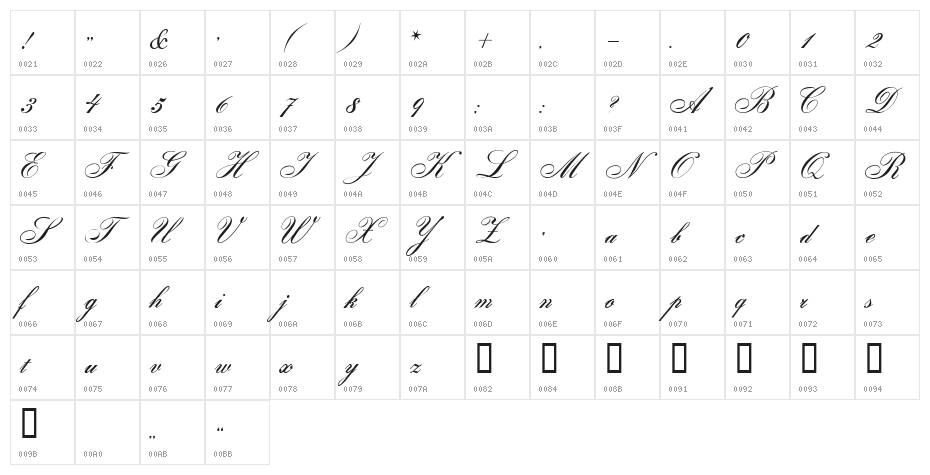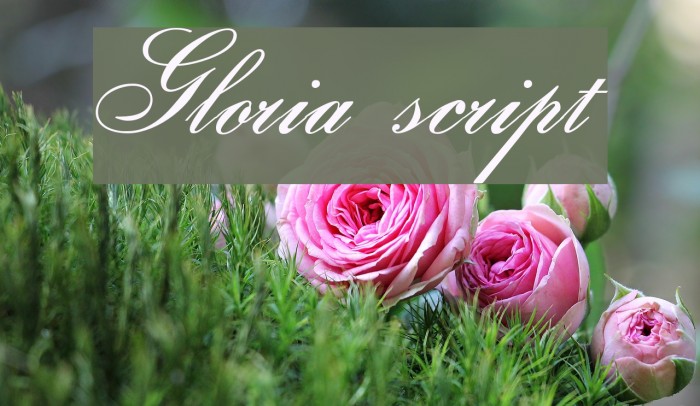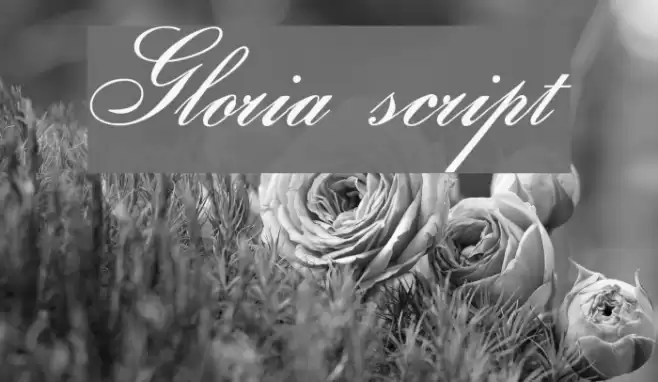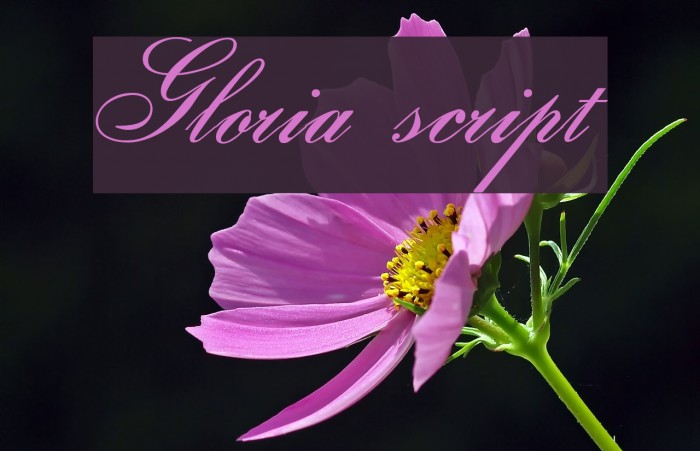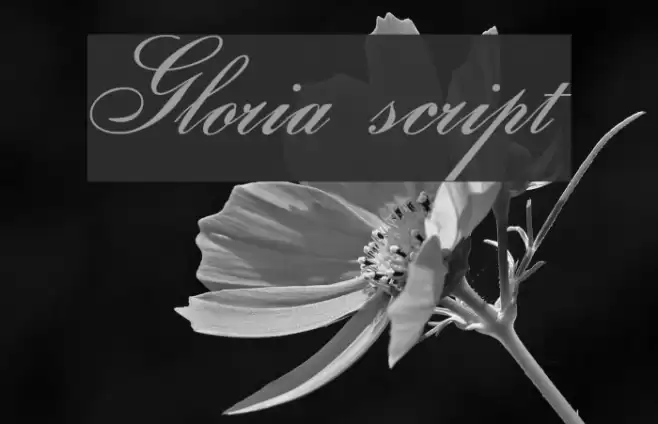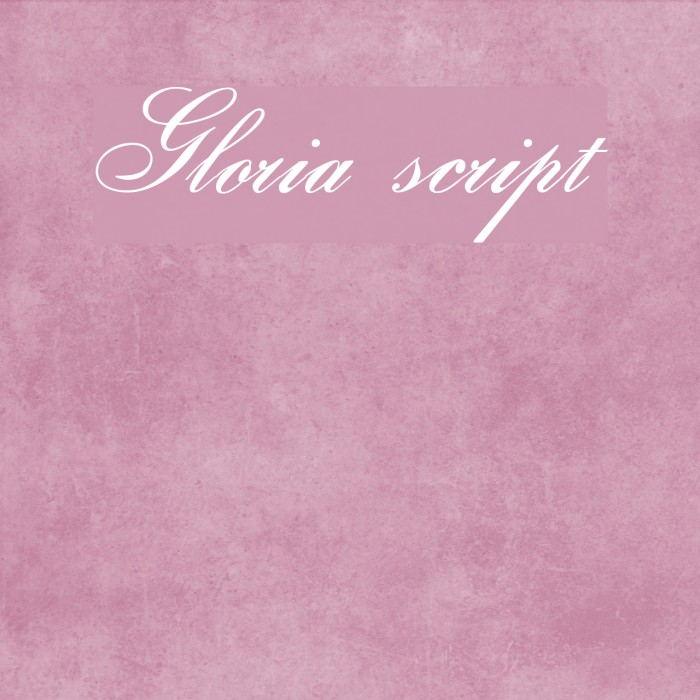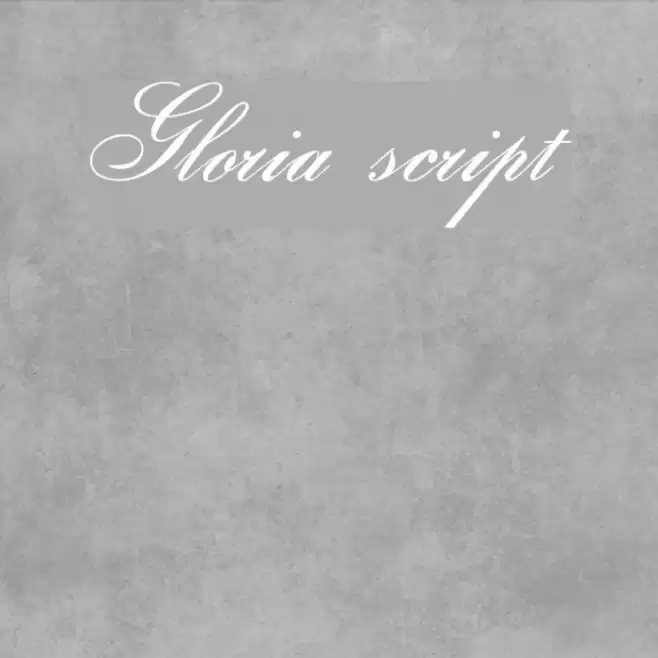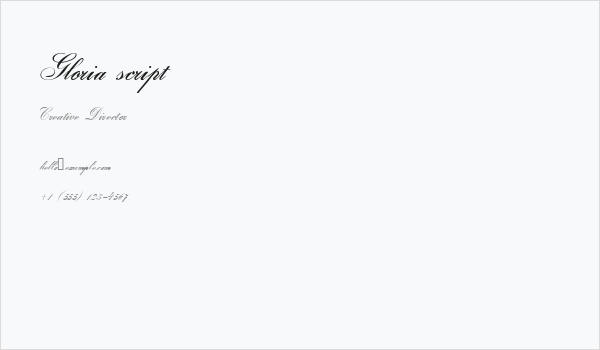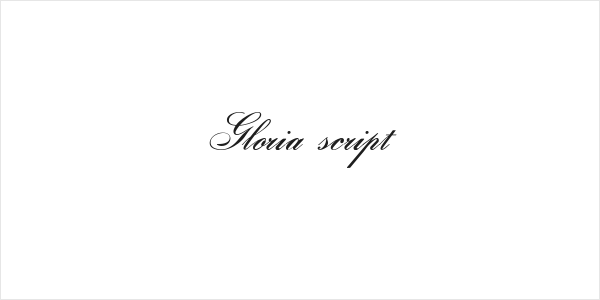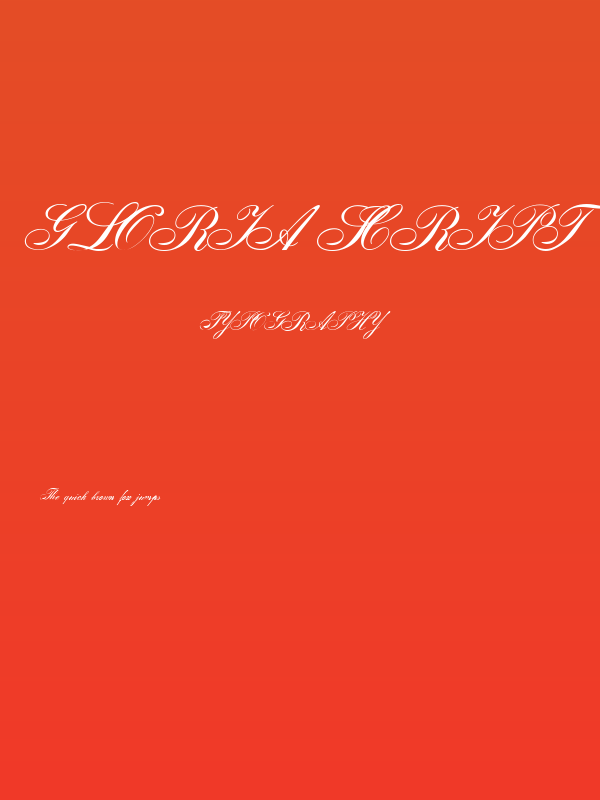
Gloria script Font
Gloria script Description
This elegant script font features flowing, cursive letterforms with intricate loops and swashes, giving it a sophisticated and ornate appearance. The uppercase letters are particularly elaborate, with extended flourishes that add a touch of grandeur. The lowercase letters maintain a consistent slant, enhancing the fluidity and grace of the text. The numerals are styled to match the script's overall aesthetic, with slight embellishments that ensure they blend seamlessly with the alphabet. Special characters are thoughtfully designed, maintaining the decorative style of the font. This font is ideal for projects that require a touch of elegance and refinement.